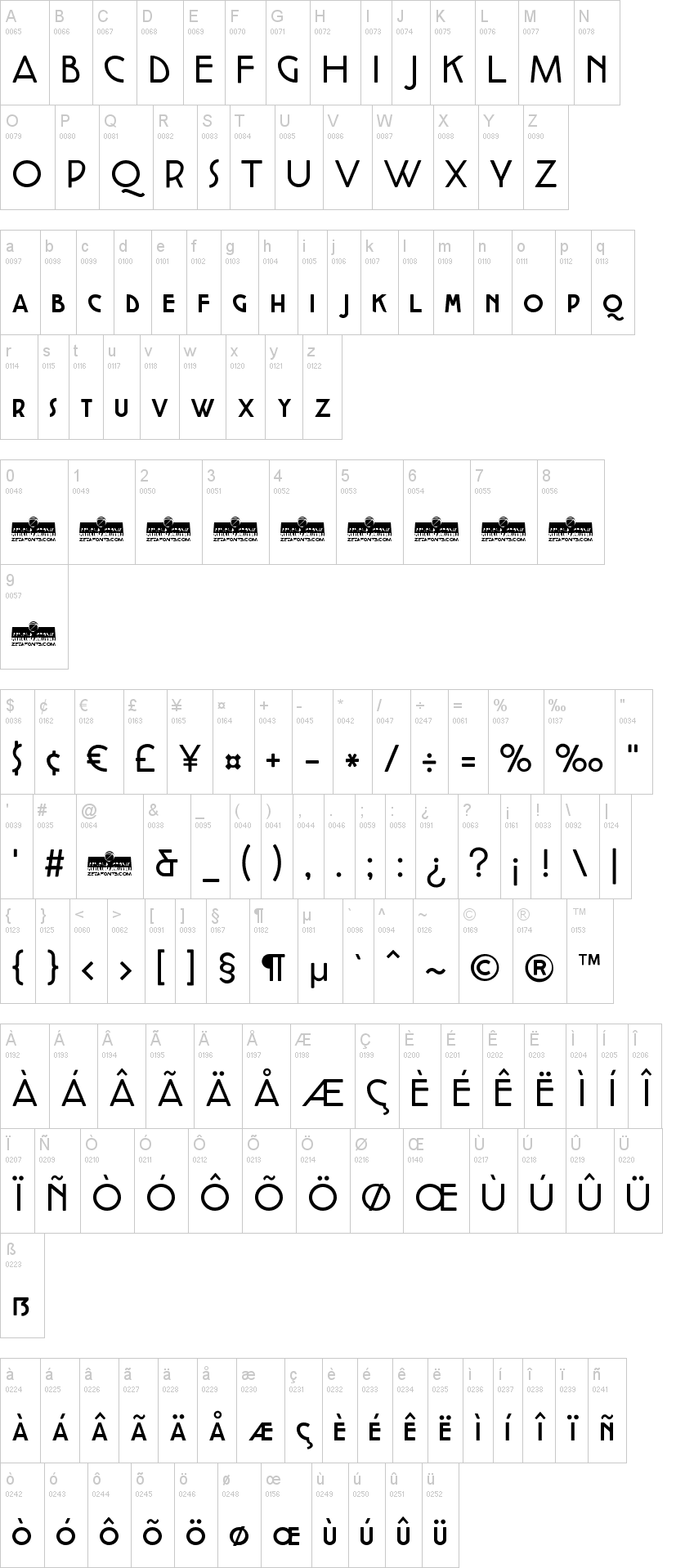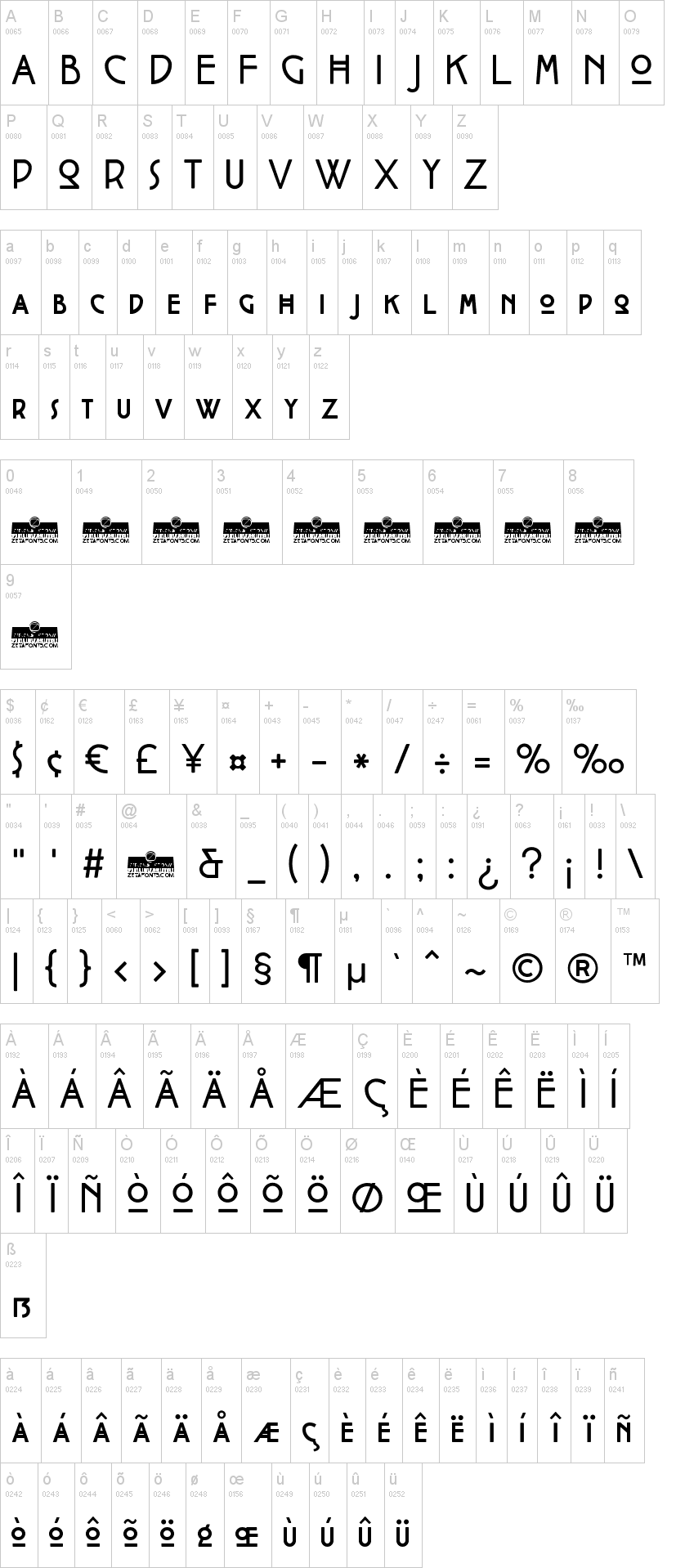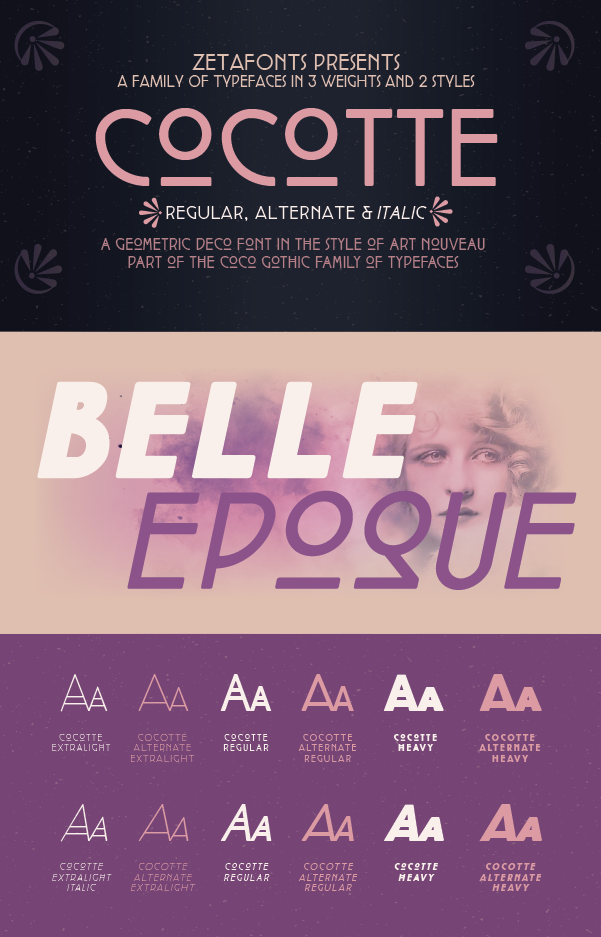
Cocotte-Regular-trial.ttfCocotte-Heavy-trial.ttfCocotteAlternate-ExtLight-trial.ttfCocotteAlternate-Regular-trial.ttfCocotteAlternate-Heavy-trial.ttfNote of the authorCocotte is a sans serif display typeface, part of the Coco Gothic superfamily, inspired by the graphic style of early art nouveau, jugendstil and arts & crafts. It comes in three weights with matching italics and features an alternate style.